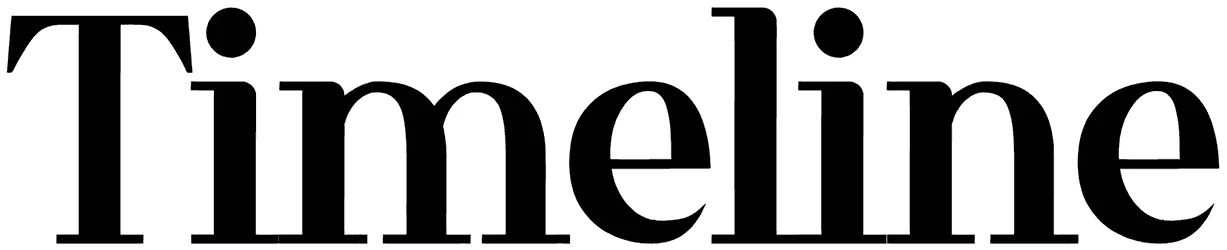
Timeline Font
Choosing a will give you freedom in numerous projects, and Timeline is one of those choices. This serif font, with three different versions of simple and sloping, will give your texts the feeling of behind-the-times designs. As a versatile typeface, Timeline is enforceable for many various designs like logos, magazines, ads, packaging, and more.